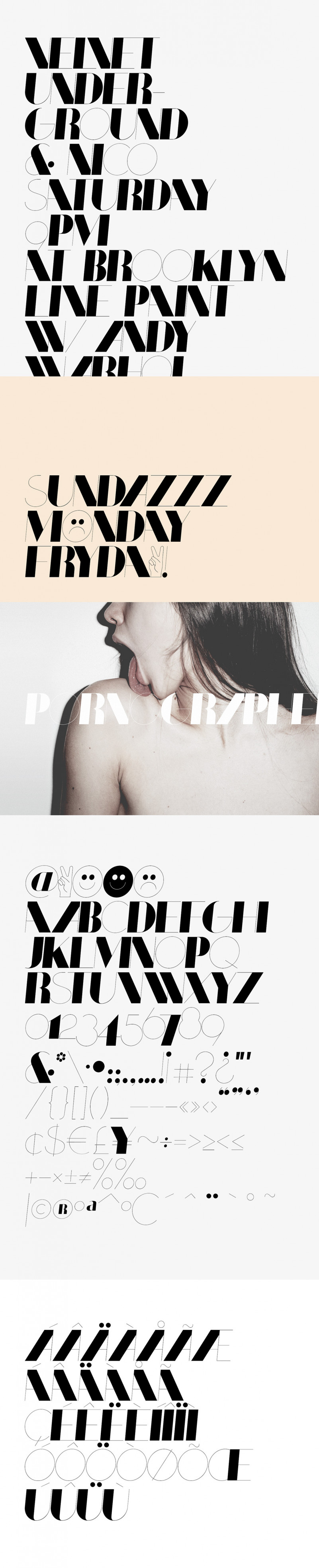
Coltrane-Display Font (Free)
Coltrane is a modernist open-source typeface inspired by neoclassical Didot types,
designed for the use in large sizes, editorials and fashion industry. Please, don’t use it in small sizes.